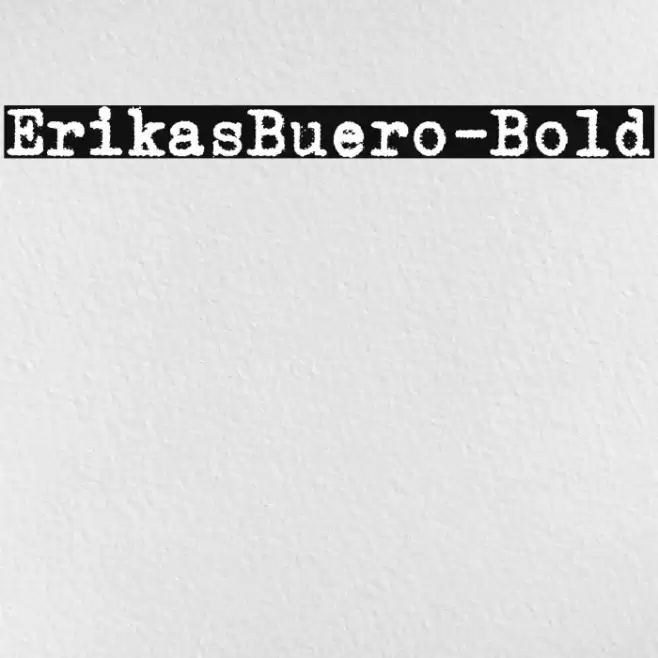
ErikasBuero-Bold Font
ErikasBuero-Bold Description
This font features a bold, textured appearance reminiscent of typewriter or vintage printing styles. Each character is distinct with a slightly distressed look, giving it a rugged and authentic feel. The uppercase and lowercase letters maintain a consistent weight, while the numerals and special characters complement the overall aesthetic. The font's boldness and unique texture make it stand out, ideal for projects that require a strong visual impact. Its design is both nostalgic and versatile, suitable for various creative applications.
A bold, textured font with a vintage, typewriter-like appearance from Uncategorized fonts.
- Proposed Projects: Ideal for vintage-themed designs, posters, branding, and any project needing a bold, textured look.
- Overall Style: Vintage